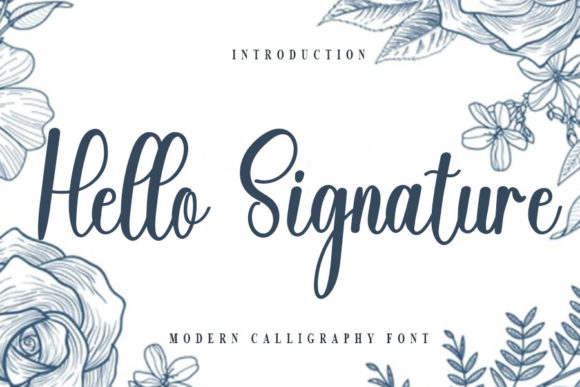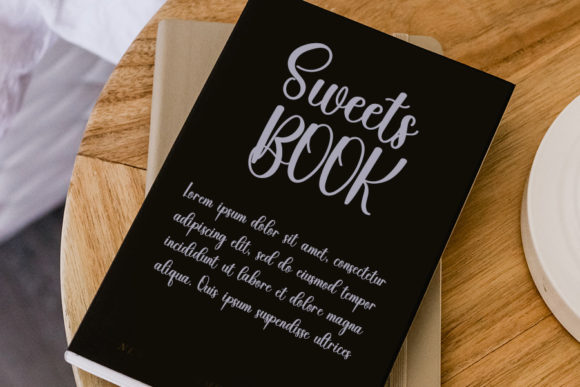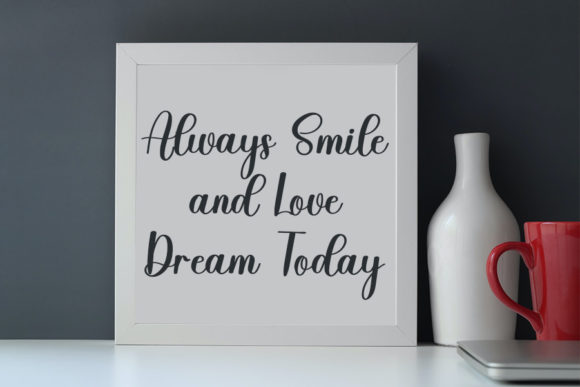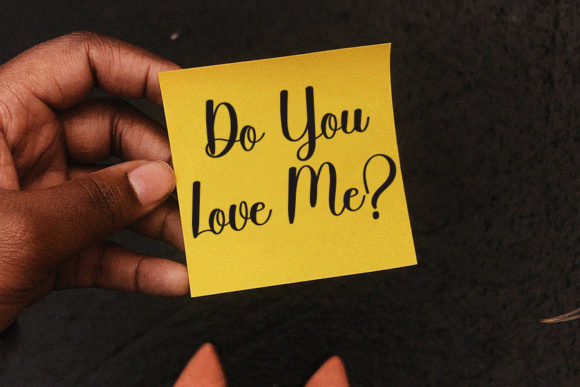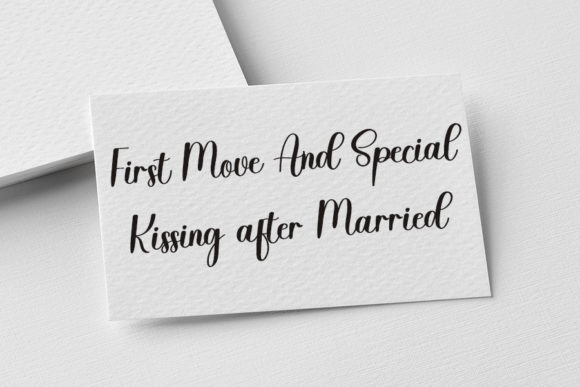
Hello Signature Font
About Hello Signature Font
Hello Signature is a cool, casual, and relaxed handwritten font. Whimsical and a bit quirky, this font will brighten up each of your designs!